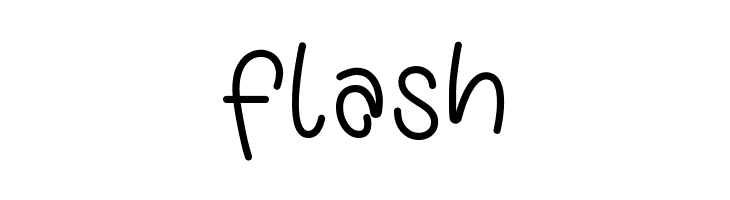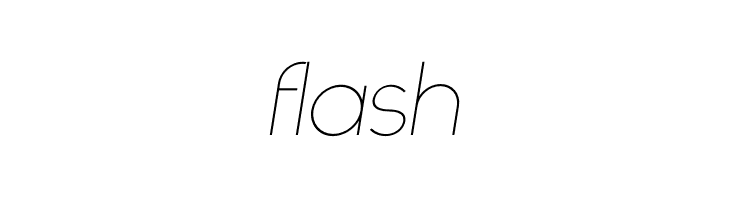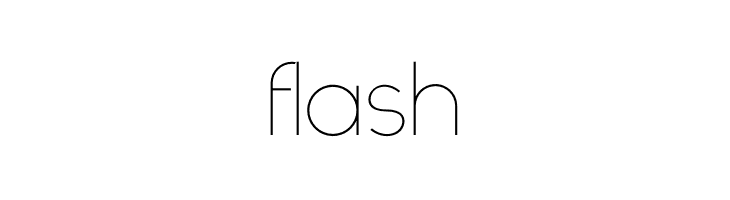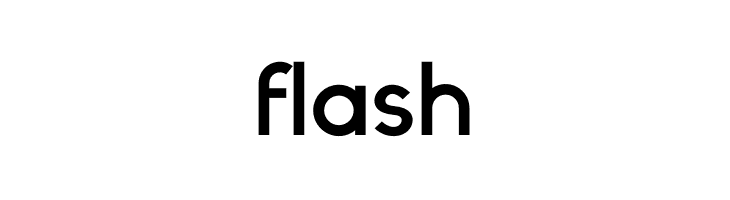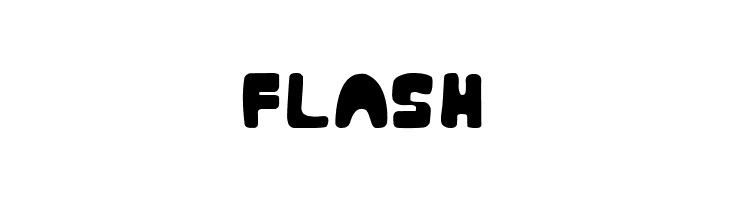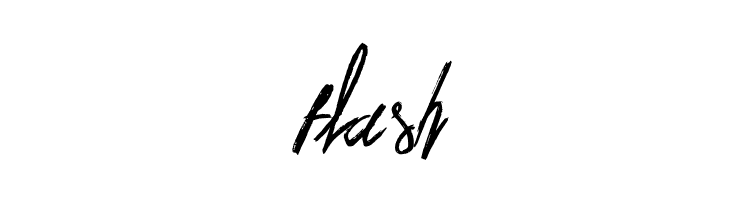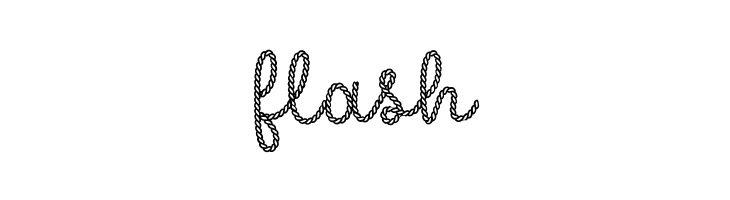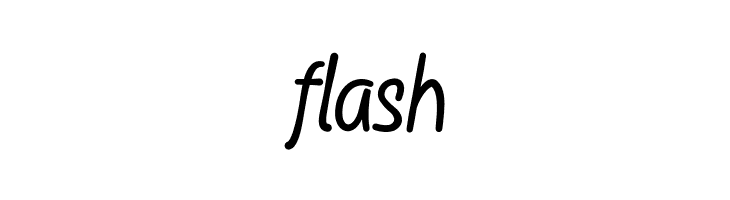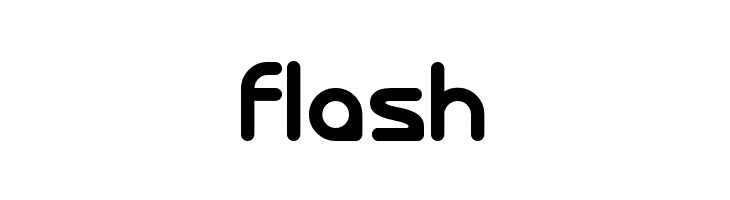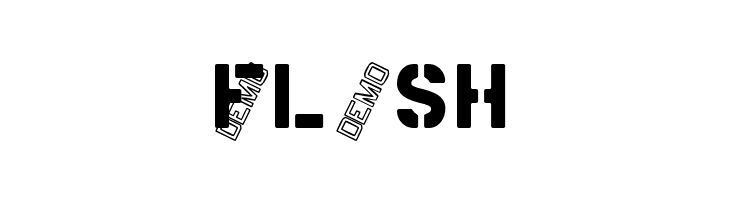
Amudham Font
A modern, clean font with smooth curves and balanced proportions, ideal for Tamil script.
.Digital iPhone Light Font
A digital, segmented font inspired by classic LED displays.
Eater of Children Font
A bold, thorny, and aggressive decorative font with a chaotic style.
Digital iPhone Light Italic Font
A segmented, digital-style font with a light, italic slant.
Expletus Sans Bold Font
A bold, modern typeface with clean lines and geometric influences.
MDMilitaryStencilADemo Font
A bold, stencil-style font with a military and industrial aesthetic.
Lipops Font
A playful, hand-drawn font with bubbly, whimsical characters.
Expletus Sans Bold Italic Font
A bold, italic, sans-serif font with a modern and dynamic style.
CRU-Todsaporn-sketch-book Font
A playful, sketch-like font with a hand-drawn, textured appearance.
CRU-Todsaporn-Hand-Written-Italic Font
A handwritten italic font with a casual and personal style.
Orchis Prima Demi Font
A modern geometric sans-serif font with clean lines and balanced proportions.
Like A Rope Font
A playful, rope-themed font with a detailed, three-dimensional appearance.
Orchis Prima Bold Font
A bold, modern sans-serif font with clean lines and a strong presence.
CRU-Todsaporn-Hand-Written Font
CRU-Todsaporn-Hand-Written-Bold Font
A playful, bold handwritten font with a whimsical and informal style.
CRU-Todsaporn-Hand-Written-Bold-Italic Font
A bold, italic hand-drawn font with a casual and expressive style.
Thrasher Head DEMO Font
Bold, handwritten script font with a casual style.
Orchis Prima Demi Italic Font
A sleek, modern italic font with consistent stroke width and a dynamic appearance.
Orchis Prima Font
Orchis Prima Bold Italic Font
A bold, italicized font with strong, dynamic strokes and a modern aesthetic.
Orchis Prima Light Font